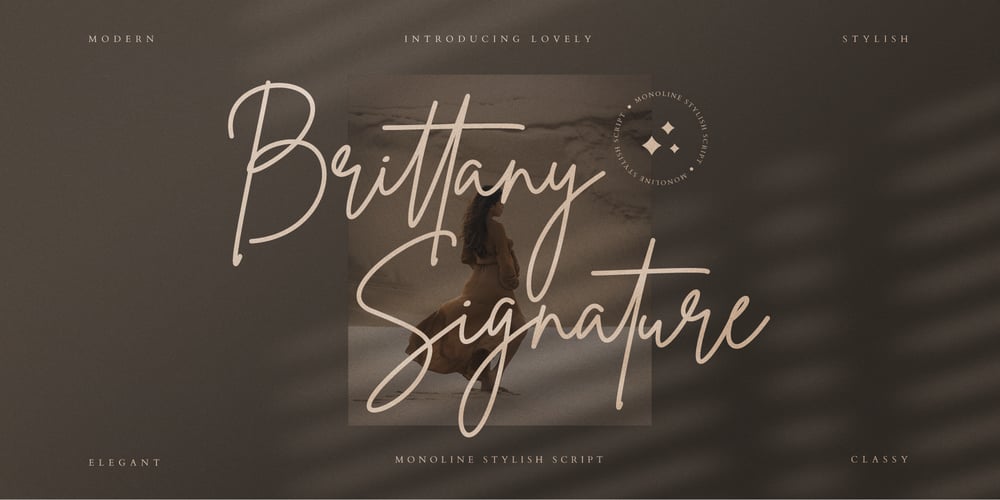
Brittany Signature Font Family was designed by Rian Rahardi and published by Creatype Studio. Brittany Signature contains 1 styles and family package options. Brittany Signature Script consists of a fashionable sophisticated signature-style script with its own unique curves and an elegant inky flow. This font is perfect for photography, watermark, social media posts, advertisements, logos & branding, invitation, product designs, label, stationery, wedding designs, product packaging, special events, or anything that needs handwriting taste.Thanks for checking it out, and feel free to message me if you have any questions! say hello by e-mail: creatypestudioco@gmail.com